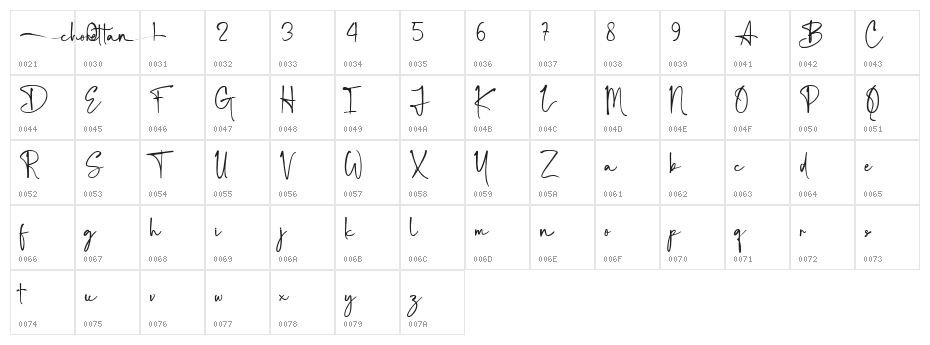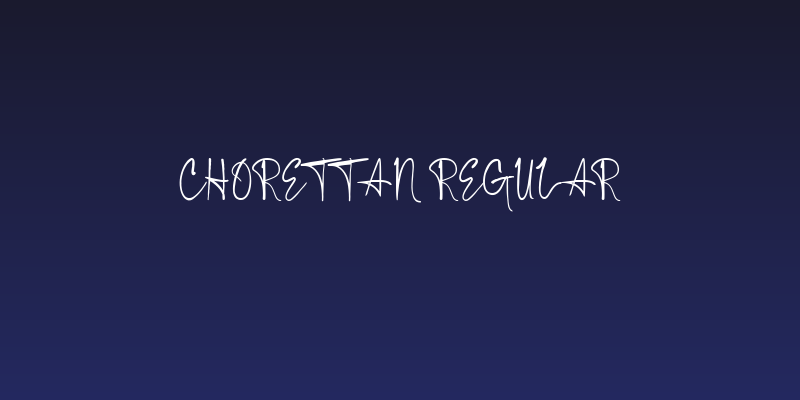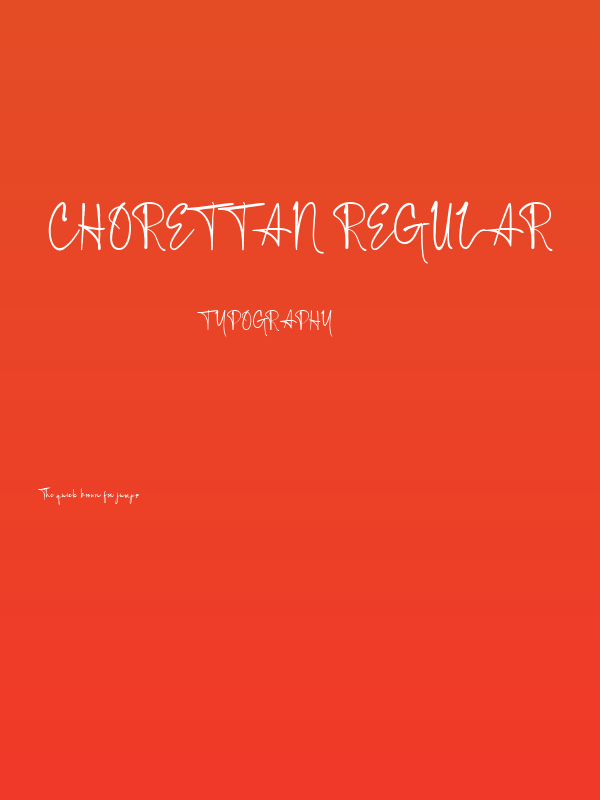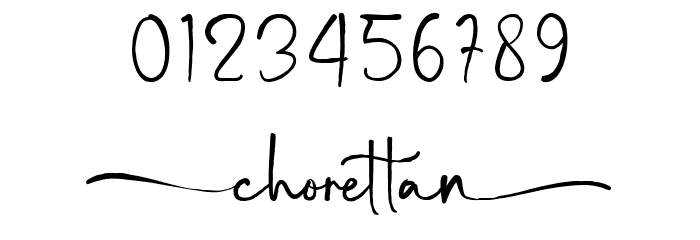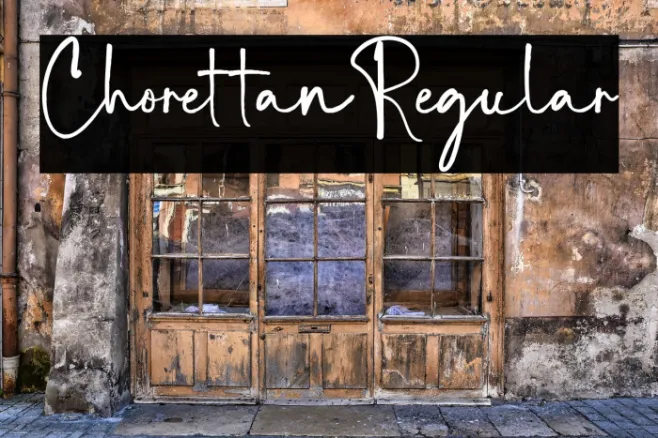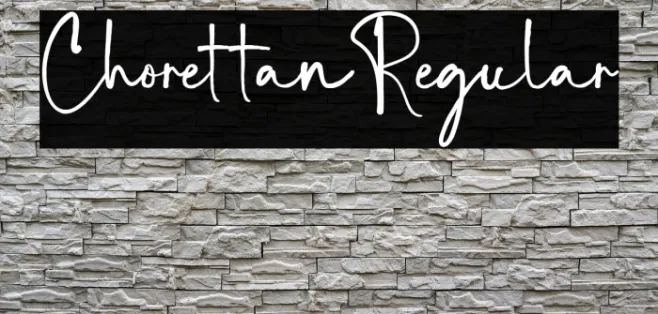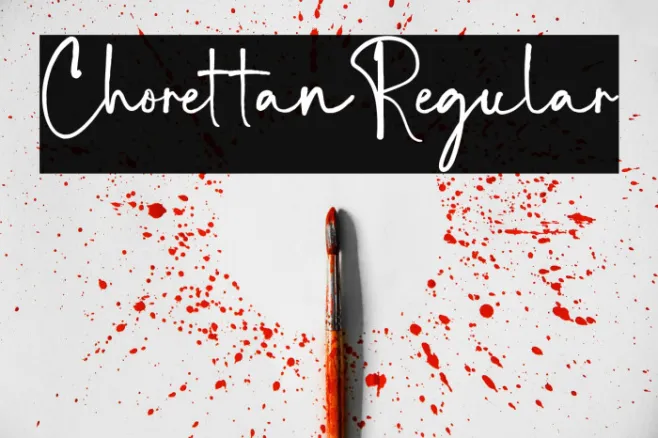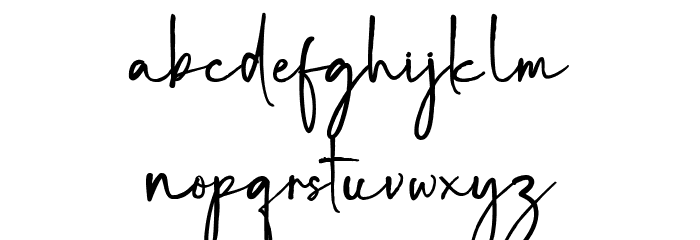
Chorettan-Regular Font
Chorettan-Regular Description
This font features a lively and expressive handwritten style, characterized by its fluid and dynamic strokes. The uppercase letters are bold and slightly exaggerated, giving them a playful yet elegant appearance. The lowercase letters maintain a consistent flow, with some characters extending below the baseline, adding to the font's whimsical nature. The numerals are clear and legible, complementing the overall design. The special characters are crafted with the same attention to detail, ensuring a cohesive look across all glyphs. This font exudes a sense of creativity and personal touch, making it ideal for projects that require a humanistic and artistic flair.